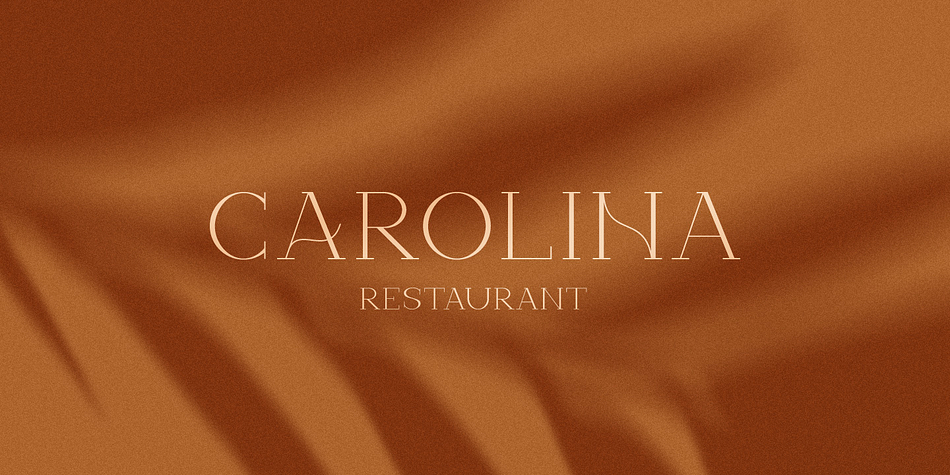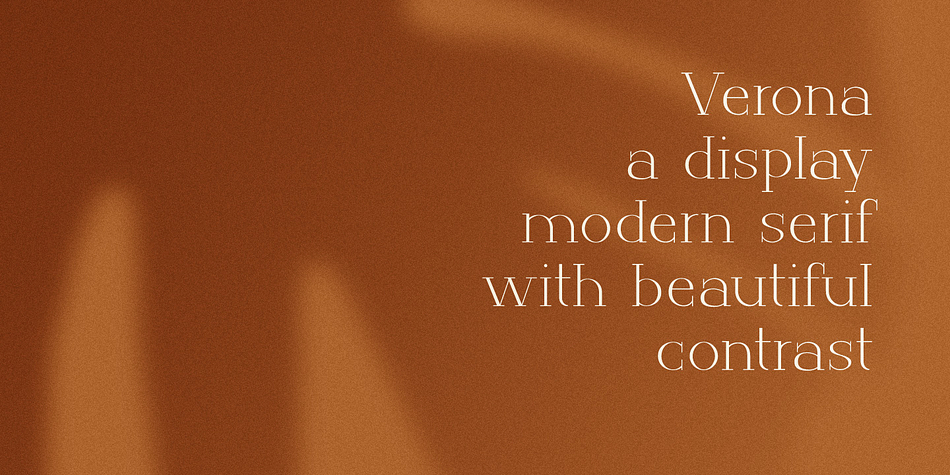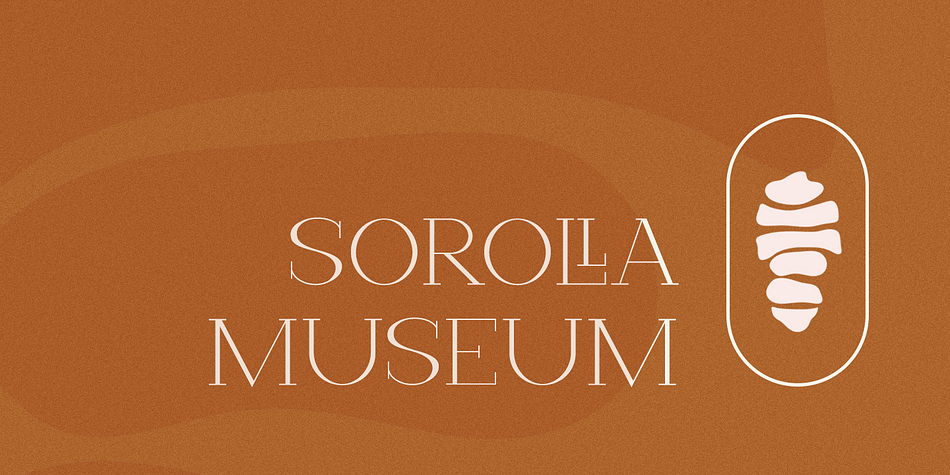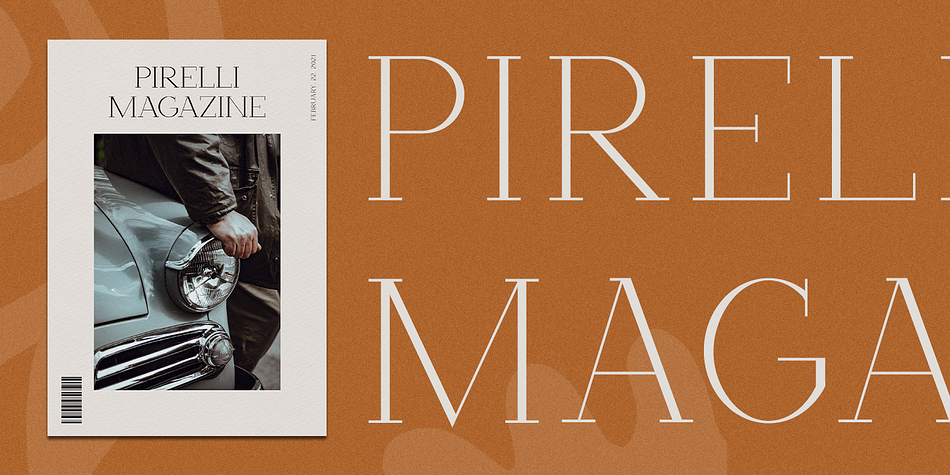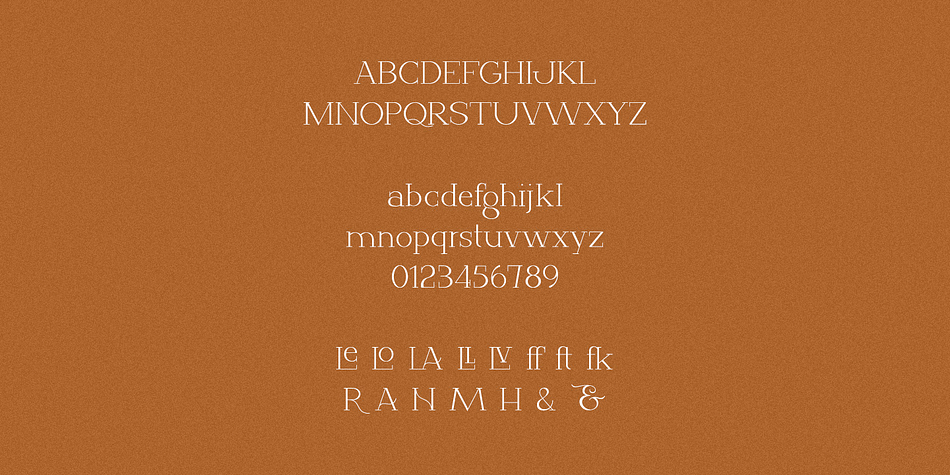
Designed by Dmitry Mashkin, SA Verona is a display serif and serif font published by ArtCoast.
Verona - elegant display serif with beautiful contrast. Designed for fashion-themed projects, suitable for creating elegant, chic, lifestyle design such as logos, title, and magazine, and more.
Letters, numbers, punctuation